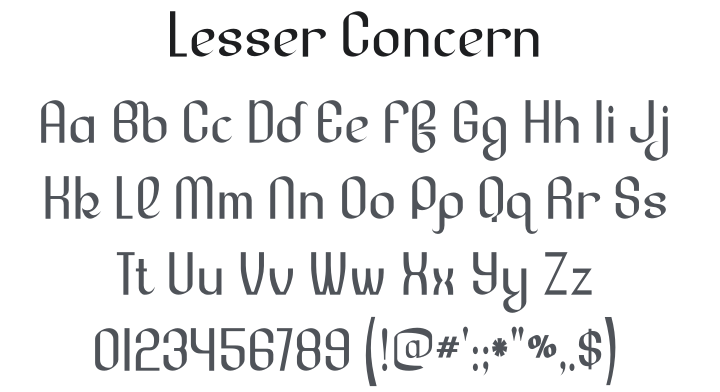
Lesser Concern Font Family
About Lesser Concern
Lesser Concern is a modular, calligraphic display typeface built from capsule-shaped strokes — pill-like rounded forms assembled into letterforms that feel both structured and decorative, with a semi-cursive flow that bridges geometric design and handwritten elegance. Available in Regular and Shadow variants. Perfect for boutique branding, artistic headlines, luxury packaging, and any design needing refined, quietly distinctive personality.